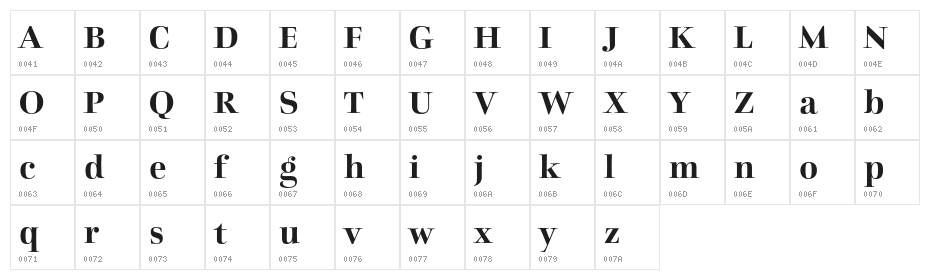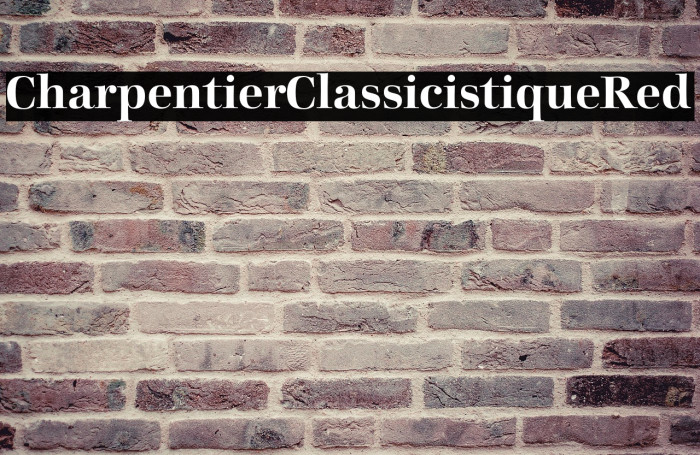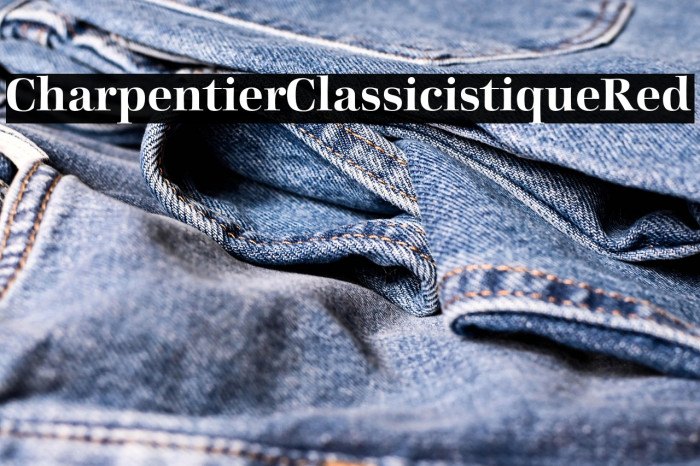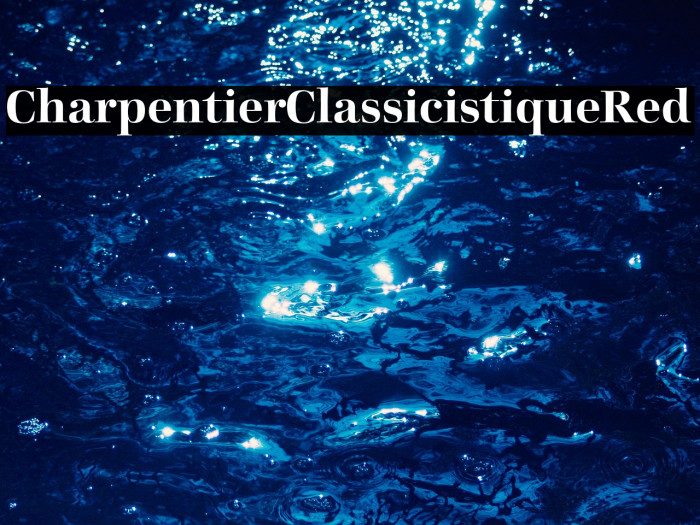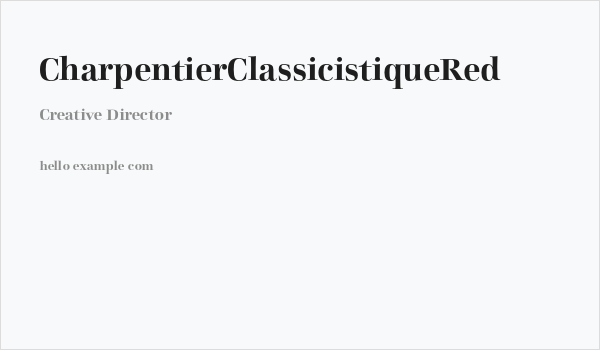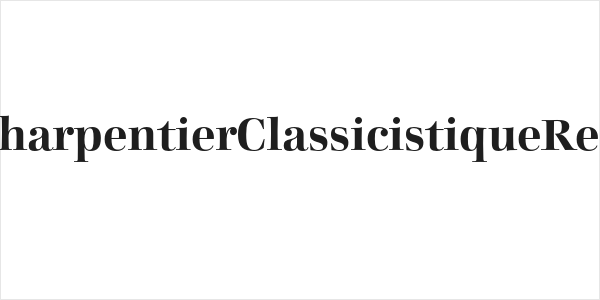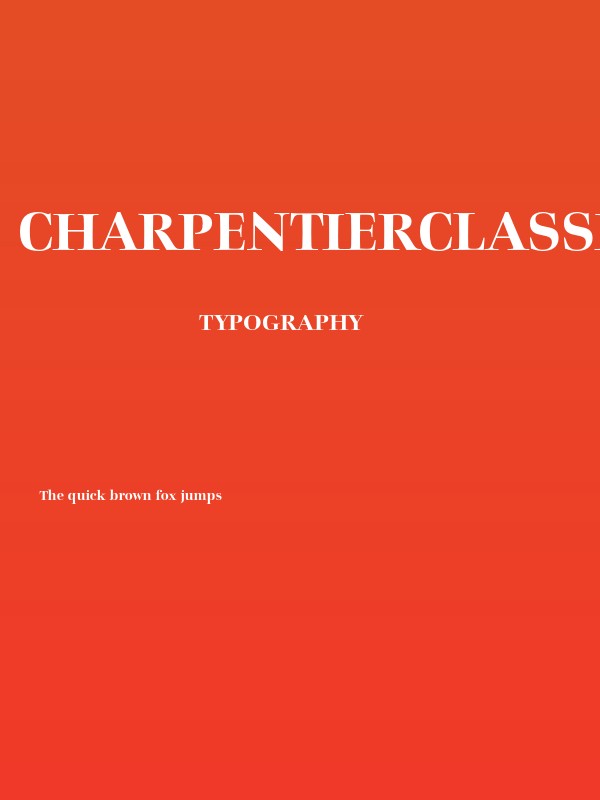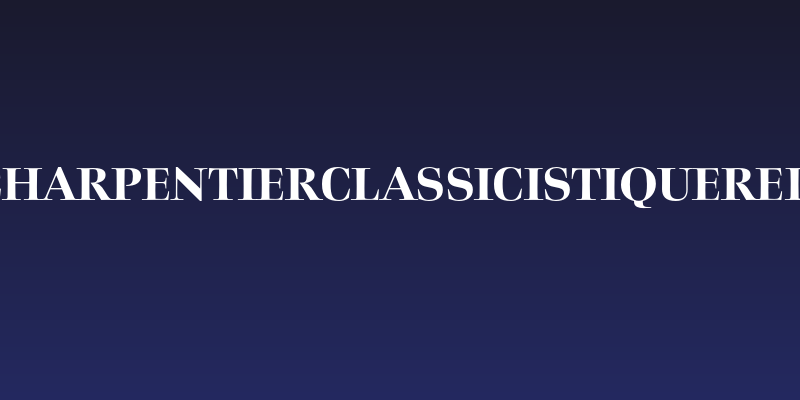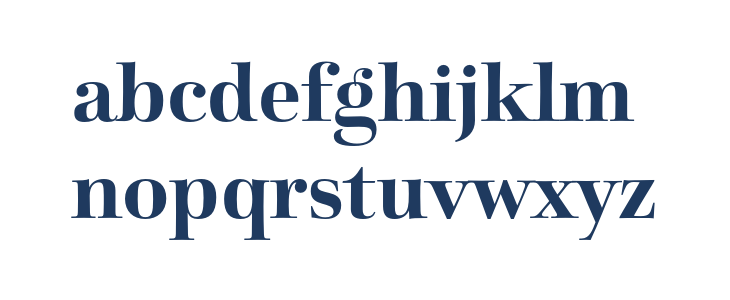
CharpentierClassicistiqueRed Font
CharpentierClassicistiqueRed Description
This font exhibits a classic serif style with strong, bold strokes and high contrast between thick and thin lines. The serifs are pronounced and sharp, giving the typeface an elegant and traditional appearance. The uppercase letters are stately and commanding, while the lowercase letters maintain a consistent and harmonious flow. The numerals are well-proportioned, and the special characters are distinct and clear. This font is suitable for projects that require a touch of sophistication and timelessness.
Overall StyleClassic
Proposed ProjectsIdeal for book covers, formal invitations, branding for luxury goods, and editorial design.